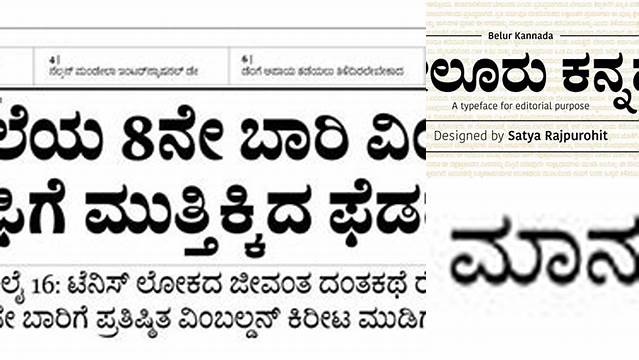
Hey guys! Are you looking for the perfect Kannada font to spice up your projects? Look no further! We're diving deep into the world of Belur Kannada Font, a beautiful and versatile typeface that's sure to catch your eye. In this comprehensive guide, we'll explore everything you need to know about this font, from its unique features to where you can download it for free. So, grab a cup of coffee, settle in, and let's get started!
1. Introduction to Belur Kannada Font
Let's kick things off with a general introduction to the Belur Kannada Font. This font family is known for its elegance and readability, making it a popular choice for a wide range of design applications. Whether you're working on a website, a printed document, or a creative project, Belur Kannada can add a touch of sophistication and authenticity. The font's distinct character shapes and balanced proportions make it easy on the eyes, ensuring a pleasant reading experience for your audience. It's carefully crafted to capture the essence of the Kannada script while maintaining a modern and versatile appeal. Belur Kannada is more than just a typeface; it's a tool that can enhance your creative work and bring your ideas to life. It’s a fantastic choice for anyone seeking a font that combines traditional aesthetics with contemporary design principles. This makes it a staple in the toolkit of designers, publishers, and anyone else working with Kannada text. Understanding the background and characteristics of the font helps you appreciate its value and use it effectively in your projects. So, when you're choosing a Kannada font, remember Belur Kannada for its elegance and readability.
2. Key Features of Belur Kannada Font
The Belur Kannada Font boasts a plethora of key features that make it stand out from the crowd. One of the most notable aspects is its exceptional legibility, which is crucial for ensuring that your text is easily readable across various mediums. The font is designed with clear and distinct character shapes, minimizing ambiguity and enhancing comprehension. Another significant feature is its versatility. Belur Kannada works beautifully in both headings and body text, making it a flexible option for a wide range of design projects. Whether you're designing a website, creating marketing materials, or laying out a book, this font can adapt to your needs. The font also offers a harmonious balance between traditional Kannada script elements and modern design aesthetics. This blend of old and new gives Belur Kannada a timeless quality, ensuring that it remains relevant and appealing for years to come. Its clean lines and graceful curves add a touch of elegance to any project, making it a favorite among designers who seek a refined and sophisticated look. Furthermore, the Belur Kannada Font supports a full range of Kannada characters, symbols, and numerals, making it a comprehensive solution for all your Kannada typesetting needs. This extensive character set ensures that you can accurately and effectively communicate your message in Kannada without any limitations. By leveraging these key features, you can ensure that your projects are not only visually appealing but also highly functional and readable.
6. Belur Kannada Font for Personal Use
For personal projects, the Belur Kannada font can be a fantastic asset. Whether you're creating invitations, designing personalized cards, or even writing a heartfelt letter in Kannada, this font adds a touch of elegance and authenticity. Imagine crafting a beautiful wedding invitation with the names of the couple elegantly written in Belur Kannada. The font's graceful curves and clear letterforms make it perfect for conveying special messages and creating a lasting impression. If you enjoy scrapbooking or journaling, Belur Kannada can be a wonderful addition to your creative toolkit. Use it to add captions, titles, or handwritten notes to your scrapbook pages, giving your memories a personal and artistic touch. For those who love DIY projects, the font can be used to create custom labels, stickers, and other decorative elements. Print out labels for your spice jars, create personalized stickers for your planner, or design unique gift tags for your friends and family. The possibilities are endless! If you're a student or researcher working on a Kannada project, Belur Kannada can help you create professional-looking reports, presentations, and other academic materials. The font's readability ensures that your work is clear and easy to understand, while its aesthetic appeal adds a touch of sophistication. Even for everyday tasks like writing emails or creating social media posts in Kannada, using Belur Kannada font can make your communication more visually appealing and engaging. The font's distinct character shapes will help your messages stand out and capture the attention of your audience. By incorporating Belur Kannada into your personal projects, you can elevate your creations and add a unique Kannada flair to your everyday life.
7. Belur Kannada Font for Commercial Use
When it comes to commercial use, the Belur Kannada font can be a powerful tool for businesses and organizations looking to connect with a Kannada-speaking audience. Its elegant design and readability make it suitable for a wide range of applications, from marketing materials to website design. Imagine a local business creating a brochure or flyer in Kannada using Belur Kannada. The font's clear and professional appearance can help convey a sense of trust and reliability, making the message more effective. For businesses with an online presence, using Belur Kannada on their website can enhance the user experience and create a strong brand identity. The font's versatility allows it to be used in headings, body text, and other design elements, ensuring a consistent and visually appealing look. In advertising campaigns, Belur Kannada can be used to create eye-catching headlines and taglines that resonate with Kannada-speaking consumers. The font's distinct character shapes can help your message stand out from the competition and leave a lasting impression. Publishers and media companies can also benefit from using Belur Kannada in their print and digital publications. The font's legibility ensures that articles, books, and other content are easy to read, while its aesthetic appeal adds a touch of sophistication. When using Belur Kannada font for commercial purposes, it's important to check the font license to ensure that you're complying with the terms of use. Some fonts may have restrictions on commercial usage, while others may require a license fee. Always read the fine print to avoid any potential legal issues. By leveraging the power of Belur Kannada, businesses and organizations can effectively communicate with their Kannada-speaking audience and create a strong brand presence in the market.
9. Alternatives to Belur Kannada Font
While Belur Kannada font is a fantastic choice for many projects, it's always good to explore alternatives to ensure you're making the best decision for your specific needs. The world of Kannada fonts is rich and diverse, offering a variety of styles and aesthetics to choose from. One popular alternative is the Tunga font, known for its clean and modern look. Tunga is widely used in Kannada publications and websites, making it a familiar and reliable choice. Another excellent option is the Nudi font, which offers a more traditional and elegant style. Nudi is particularly well-suited for formal documents and designs that require a touch of sophistication. For those seeking a more contemporary feel, the Kedage font is a great option. Kedage features bold and geometric letterforms, making it ideal for headlines and display text. If you're looking for a font that's similar to Belur Kannada but with a slightly different personality, consider the Lohit Kannada font. Lohit Kannada is another highly readable and versatile font that works well in both print and digital media. In addition to these specific fonts, there are also several online resources and font foundries that offer a wide selection of Kannada fonts. Google Fonts, for example, is a great place to discover free and open-source Kannada fonts that can be used in web design projects. When choosing an alternative to Belur Kannada, consider factors such as legibility, style, and compatibility. Think about the overall tone and message of your project and select a font that complements your design. It's also a good idea to test different fonts to see how they look in various applications and settings. By exploring the available alternatives, you can find the perfect Kannada font to meet your specific requirements and create stunning visual designs.
18. Belur Kannada Font and Kerning/Tracking
Kerning and tracking are crucial typographic adjustments that affect the spacing between letters and words, ultimately influencing readability and visual appeal. The Belur Kannada font, like any other typeface, can benefit from careful kerning and tracking adjustments. Kerning refers to the adjustment of space between individual letter pairs, while tracking (or letter-spacing) refers to the uniform adjustment of space between all letters in a word or block of text. Proper kerning ensures that the space between letters appears visually consistent, preventing letters from looking too crowded or too far apart. This is particularly important for letter pairs that have unusual shapes or combinations, such as